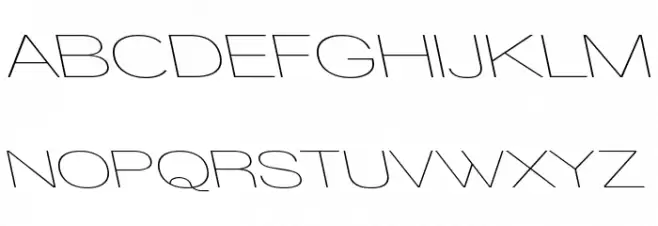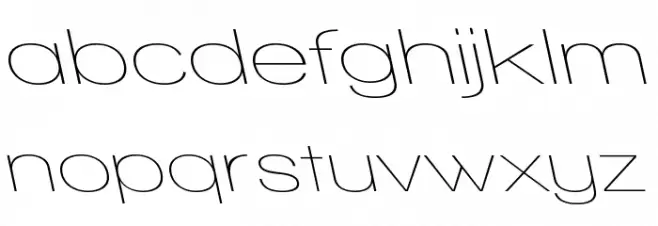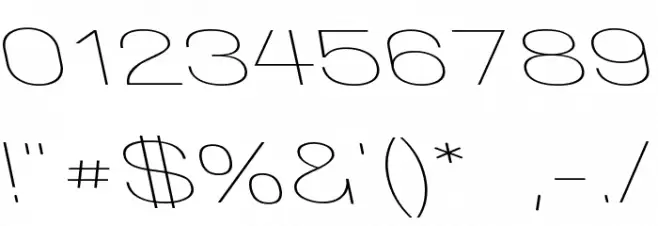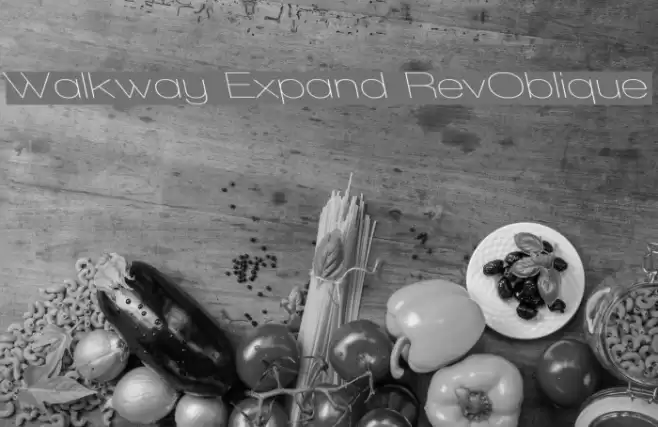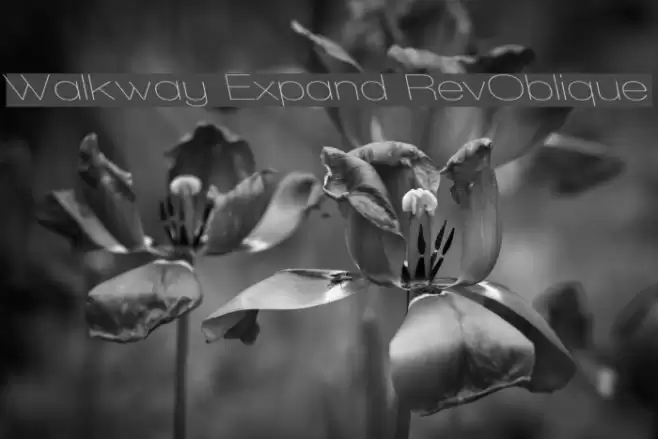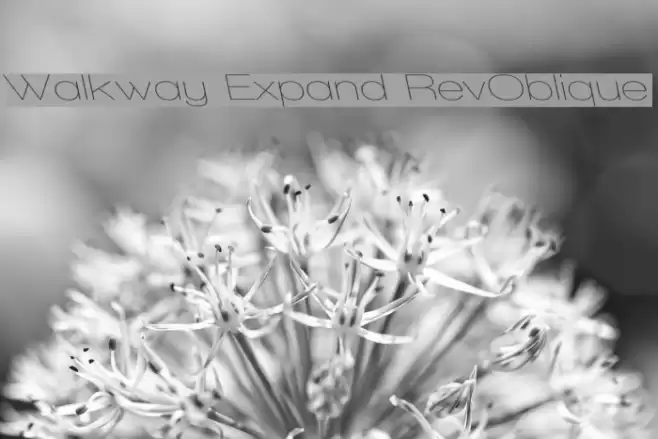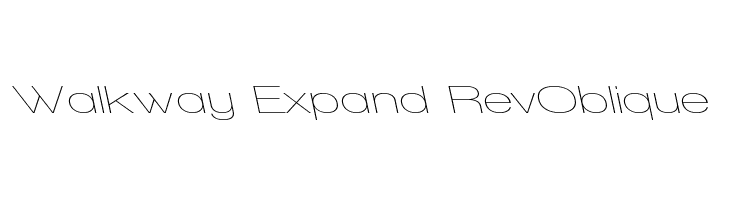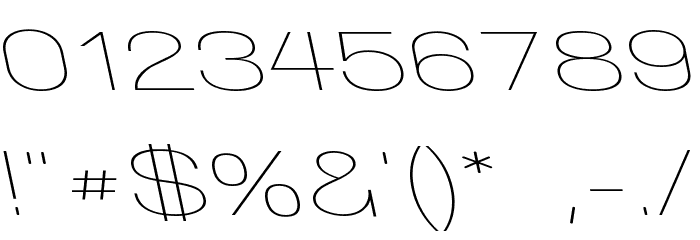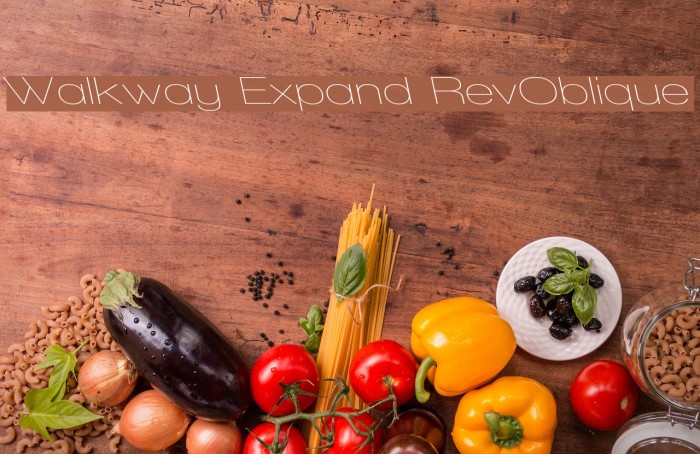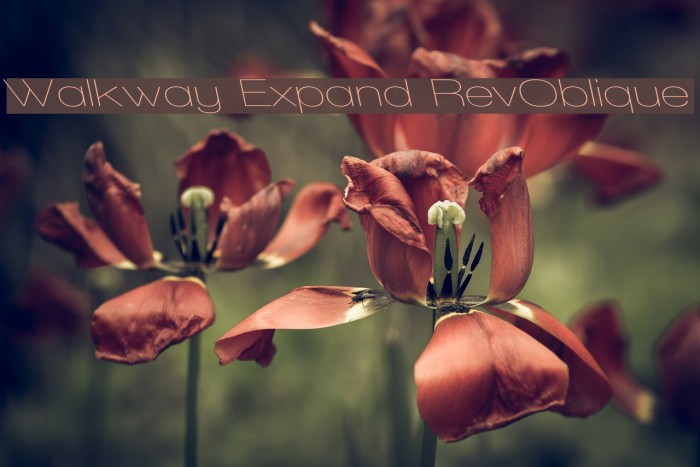
Walkway Expand RevOblique
This font features a sleek, modern design with expanded letterforms and a reverse oblique style. The characters are thin and elongated, giving a sense of elegance and sophistication. The uppercase and lowercase letters maintain a consistent slant, enhancing the dynamic appearance. The numerals and special characters follow the same stylistic cues, ensuring uniformity across all glyphs. The overall look is clean and minimalistic, making it suitable for contemporary design projects.
A modern, expanded font with a reverse oblique style and thin, elegant letterforms.
- Proposed Projects: Ideal for branding, modern web design, fashion magazines, and minimalist posters.
- Weight: Light
- Width: Expanded